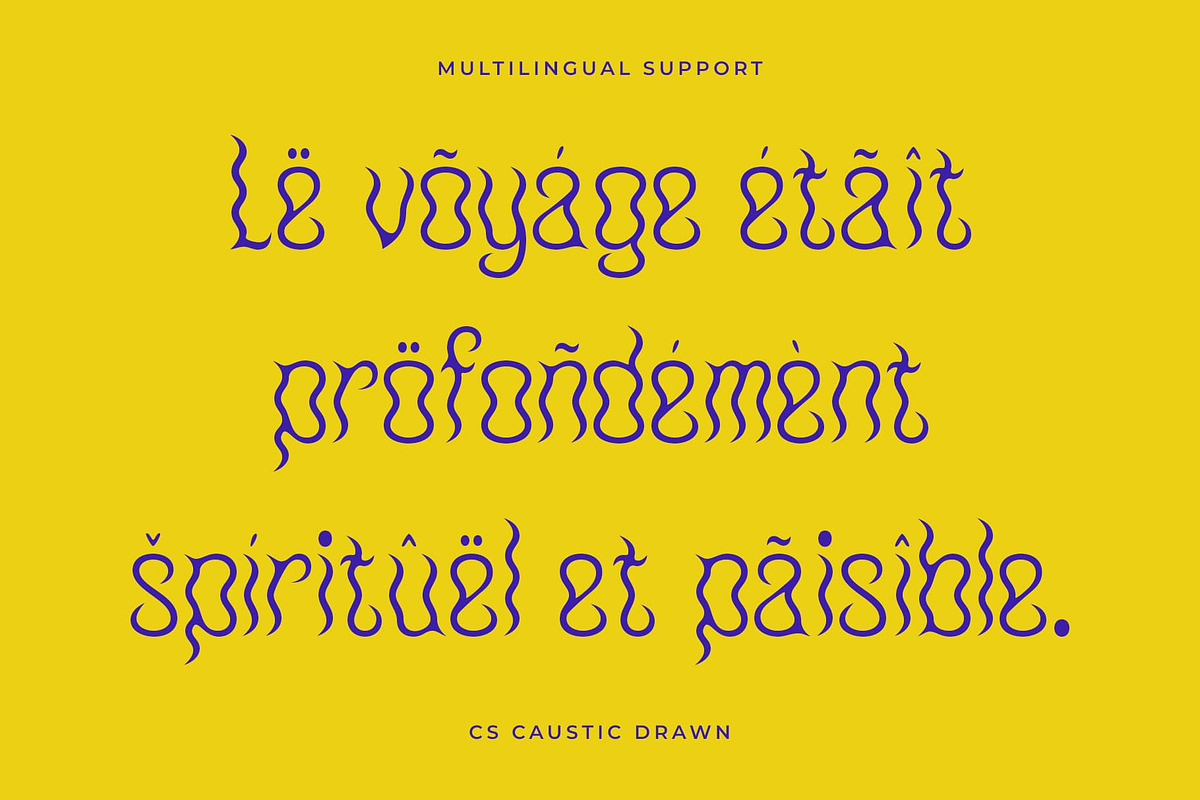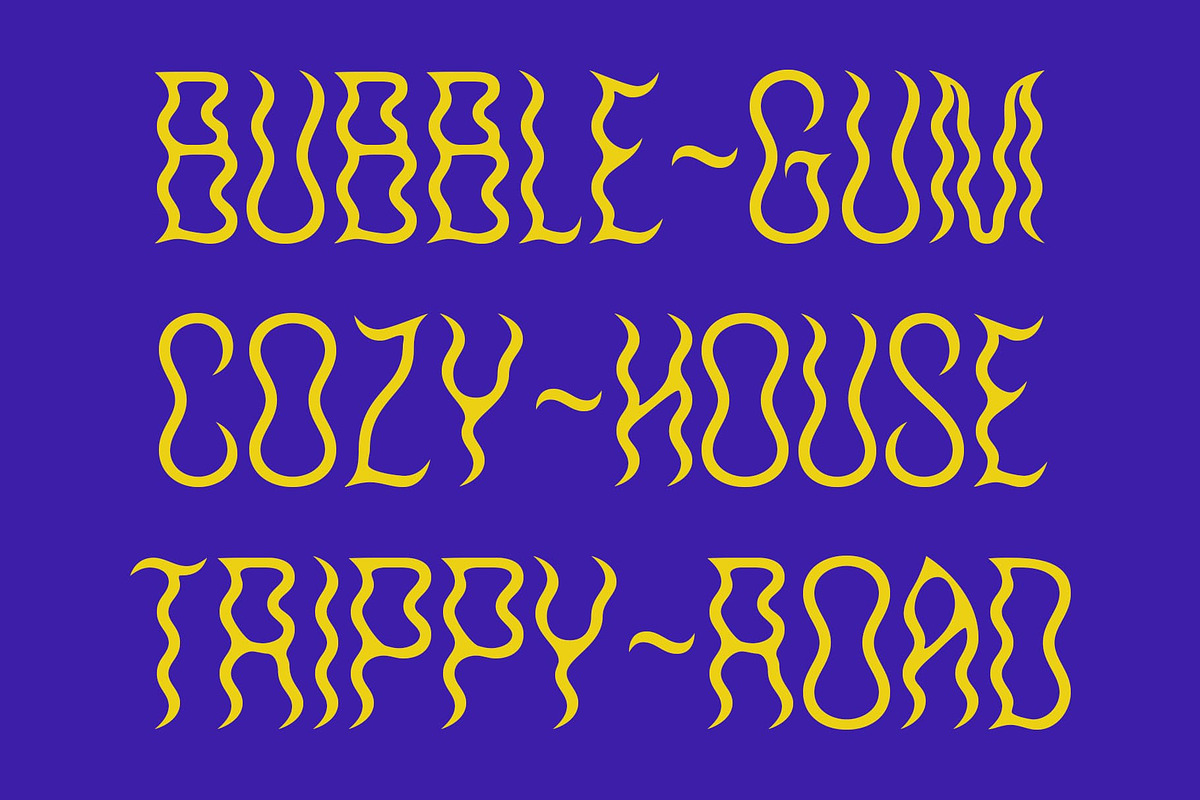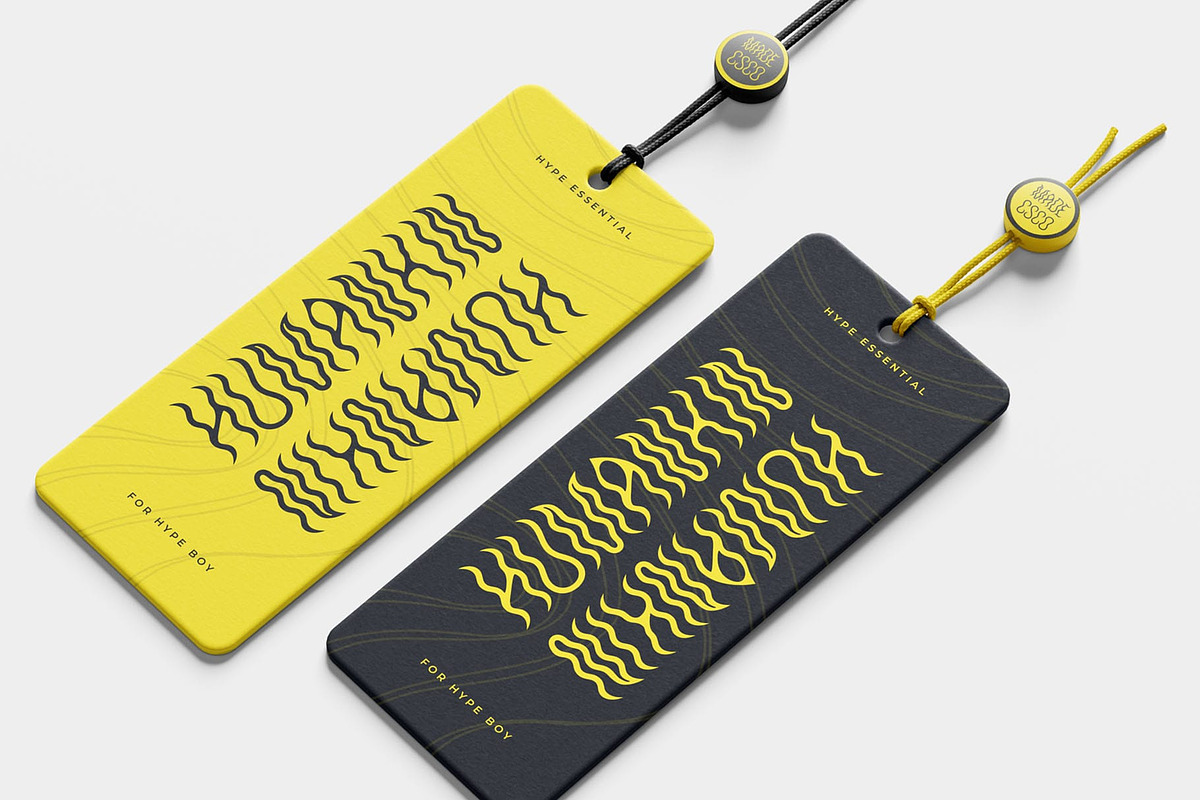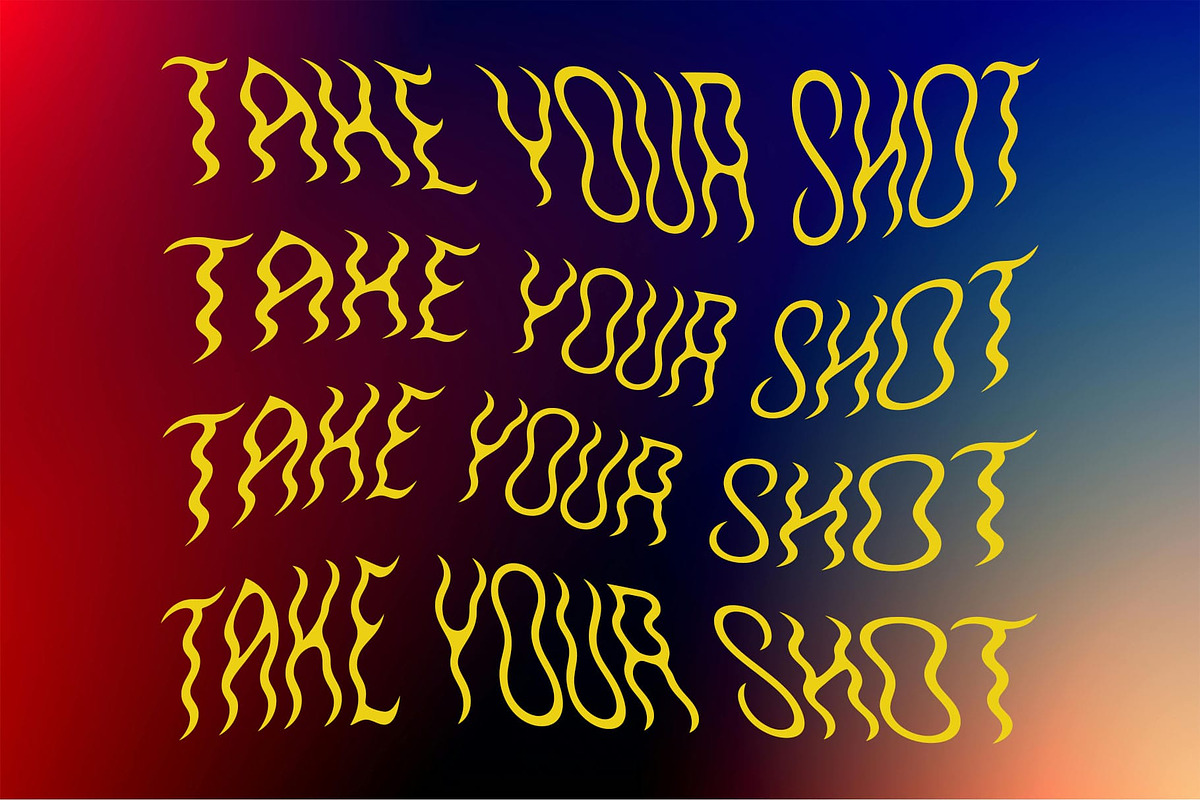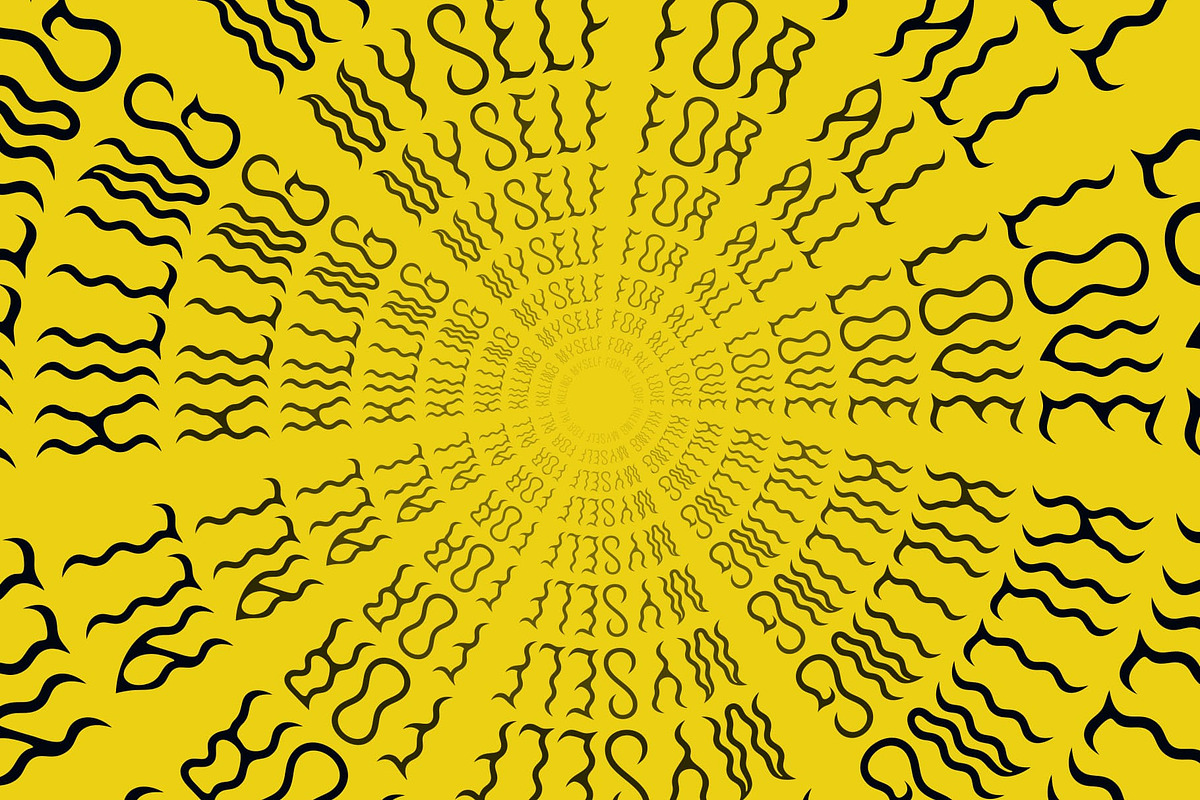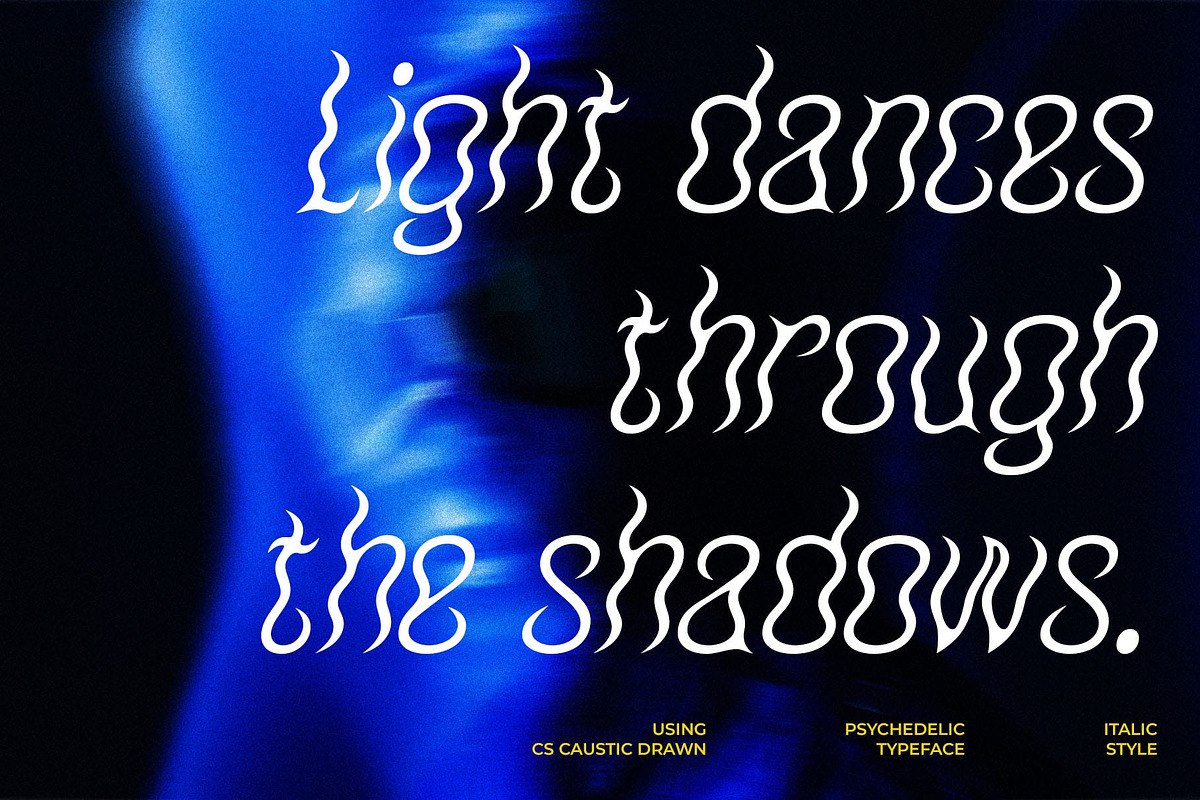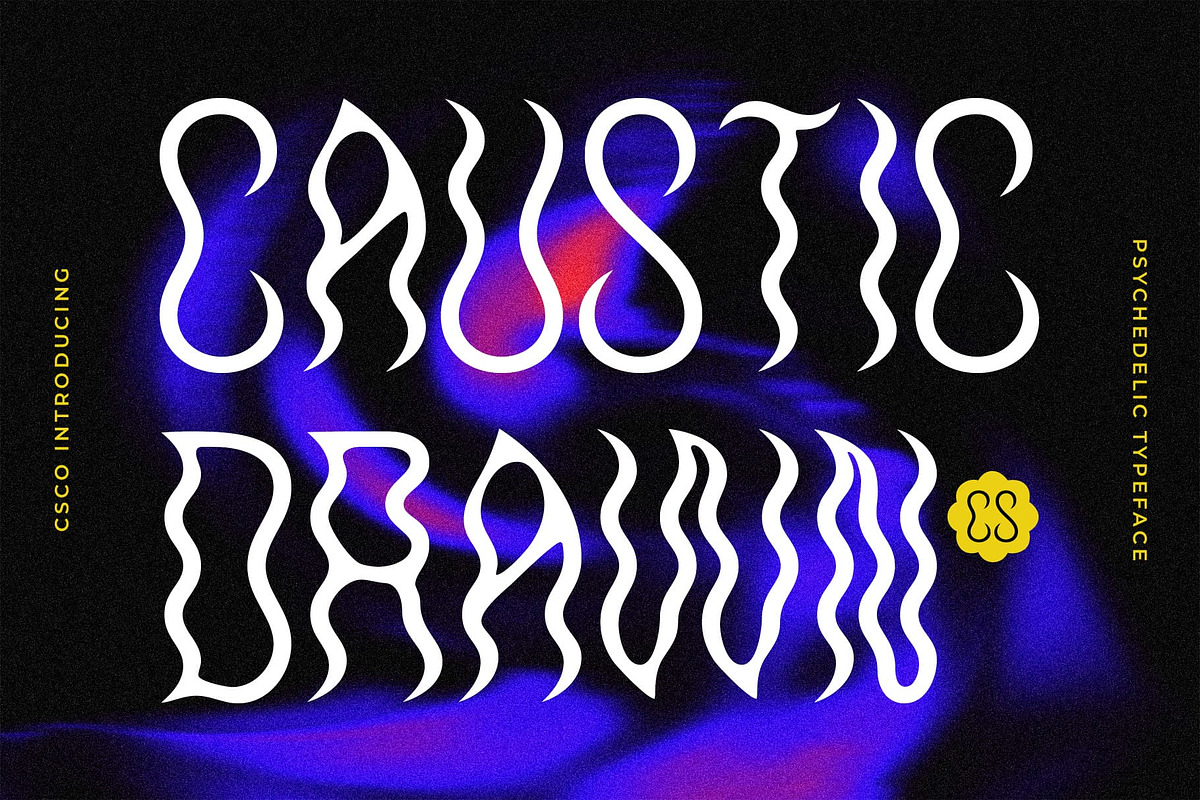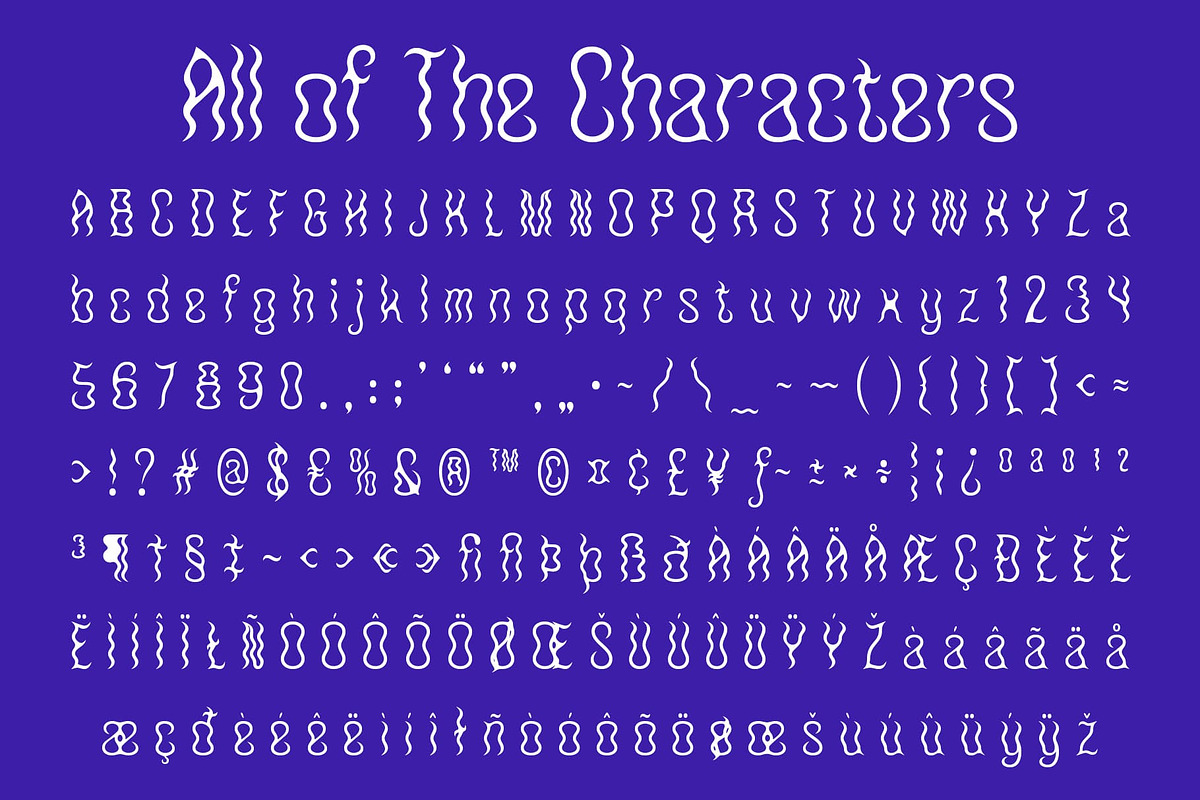
CS Caustic Drawn
CS Caustic Drawn – Psychedelic Expression Meets Handcrafted Energy
Psychedelic Display Font with Drawn Texture This is a modern display font defined by its psychedelic shape—free-flowing curves, irregular contours, and vibrant distortions that recall the energetic design spirit of the 1960s–70s. The addition of a drawn effect enhances the visual with a handcrafted, raw, and artistic finish, making each letter feel alive and expressive.
Distorted Forms with Retro-Futuristic Impact The font’s fluid and distorted shapes radiate a funky and surreal aesthetic. This unusual rhythm adds a sense of visual motion and unpredictability, inspired by vintage psychedelia but designed for modern imagination.
Perfect for Creative, Music, and Festival-Themed Design This unconventional font is tailor-made for music posters, album artwork, festival identities, or fashion campaigns that need to stand out with vibrancy and edge. Its style evokes everything from psychedelic rock to modern indie creativity, helping you craft visuals that are both nostalgic and forward-thinking.
Unconventional and Expressive for Bold Branding This font is ideal for designers who want to break the mold—delivering designs that are expressive, chaotic, and full of personality. Whether used for branding, event materials, or creative zines, this quirky font brings a unique blend of vintage energy and modern artistic rebellion.